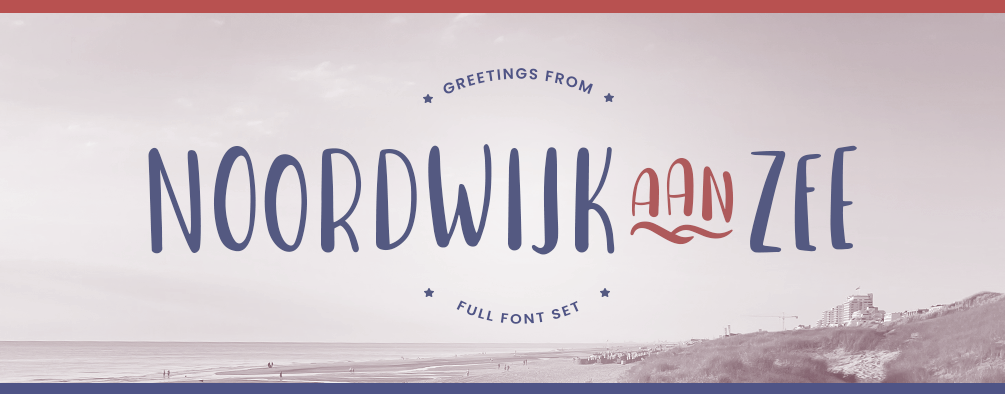
Noordwijk aan Zee - Full Commercial Version
You are about to buy the commercial use and full version of "Noordwijk aan Zee" which is our brand new handwritten styled font. This includes both the Regular and Italic Style.